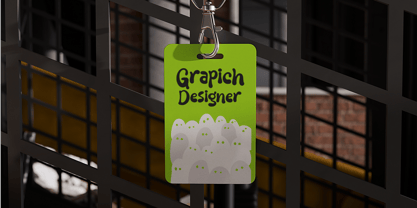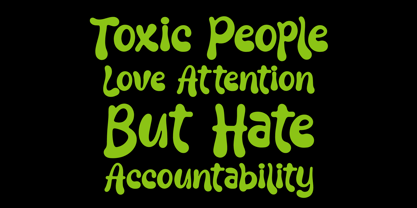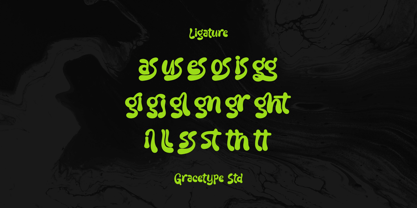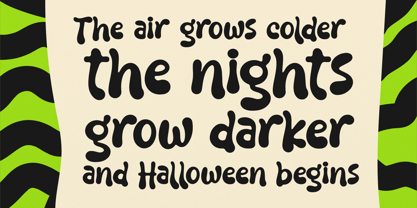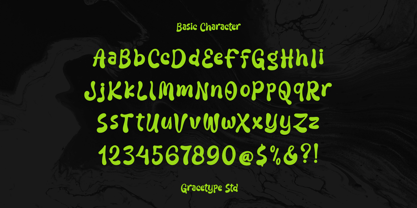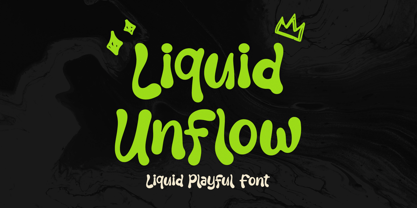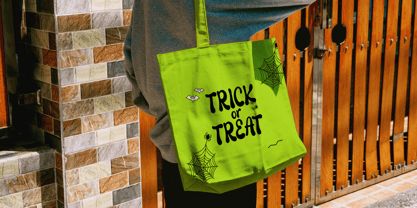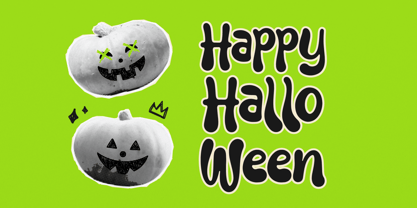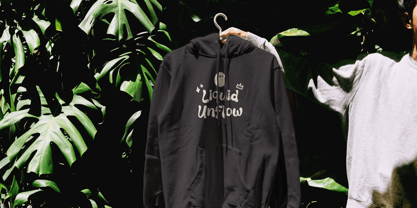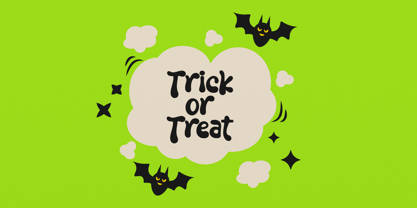
Liquid Unflow
The Liquid Unflow Font Family and published by Tini Fitriani. Liquid Unflow contains 1 styles. More about this family
Liquid Unflow | Liquid Playful Font, from Gracetypestudio, suitable for any projects such as: logos, branding projects, homeware designs, product packaging, mugs, quotes, posters, shopping bags, t-shirts, book covers, name card, invitation cards, greeting cards, label, photography, watermark, special events, and all your other lovely projects that need a Hand Drawn taste.